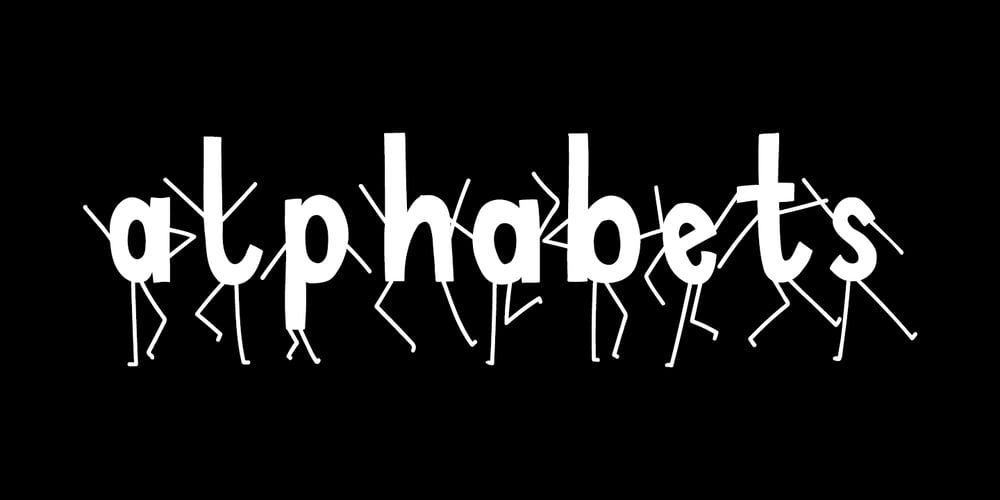
Excited Alphabets Font Family was designed by Harald Geisler, Sumbo Pinheiro and published by Harald Geisler. Excited Alphabets contains 1 styles and family package options. Excited-Alphabets is a lowercase display font. The letterform is sans-serif with a few appendages to give the letters a life-like and cheerful form. Also, each Letter has two poses (i.e. s and S) which makes it easy to design the perfect headline, characters can also be chosen individually from the glyphs menu to get a unique look. Its dynamic or ‘dancing’ look makes it perfect for (short) editorial headlines, celebratory lines, fun branding, social media posts, website headers, posters, ads, products, stationery designs and more. Excited alphabets was born in Frankfurt (Germany) when two ‘almost-neighbours’ met at a coffee shop. Inspired by the illustration of Sumbo Pinheiro, Excited was designed by Harald Geisler and Sumbo Pinheiro. From quirky illustration to font, this was a fun project to work on because each alphabet comes with its own sassy character.